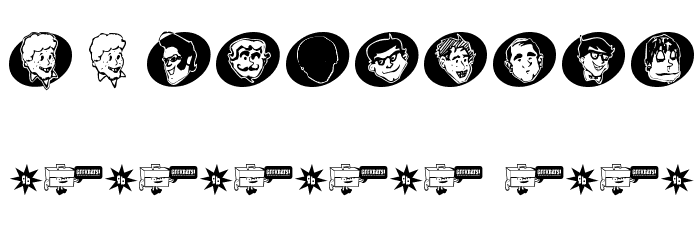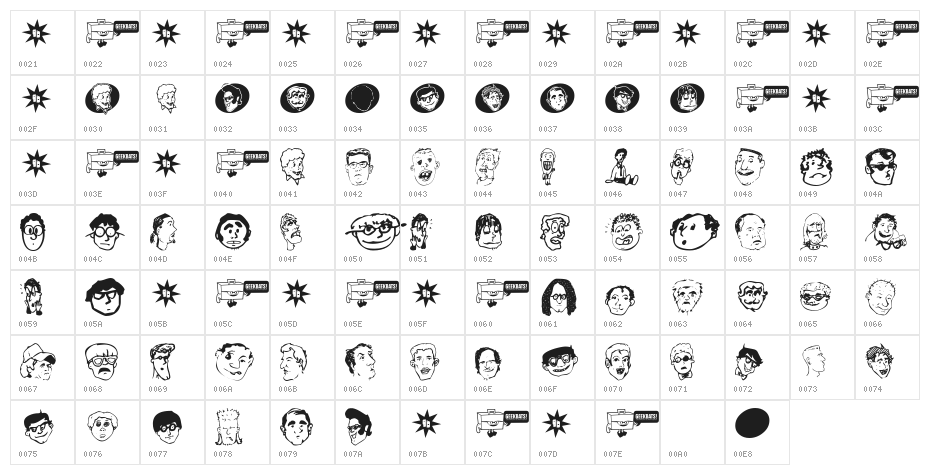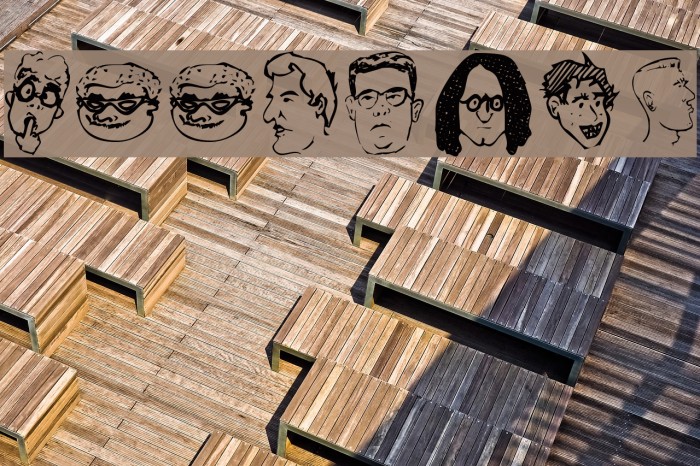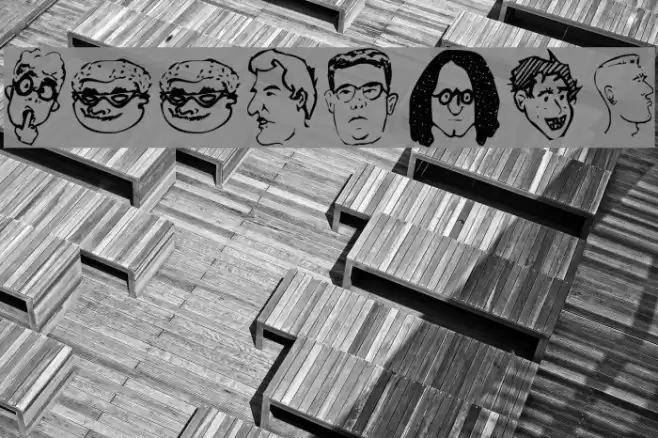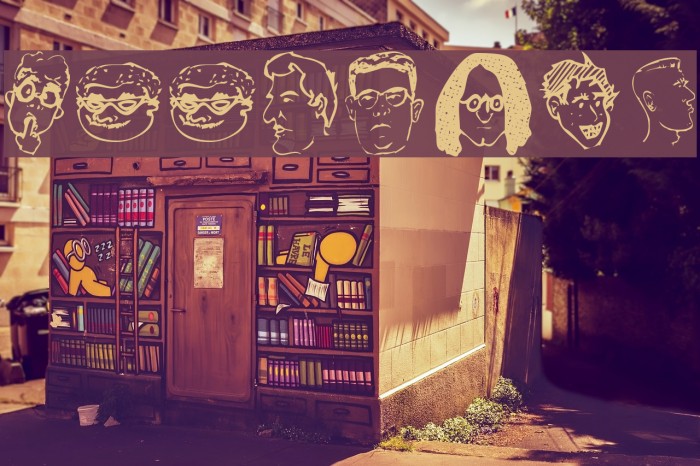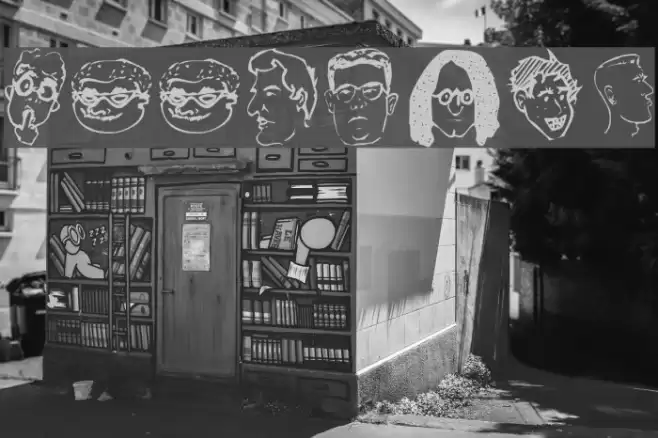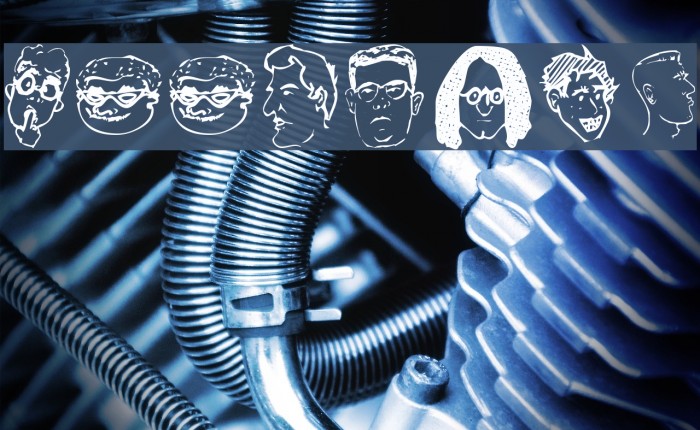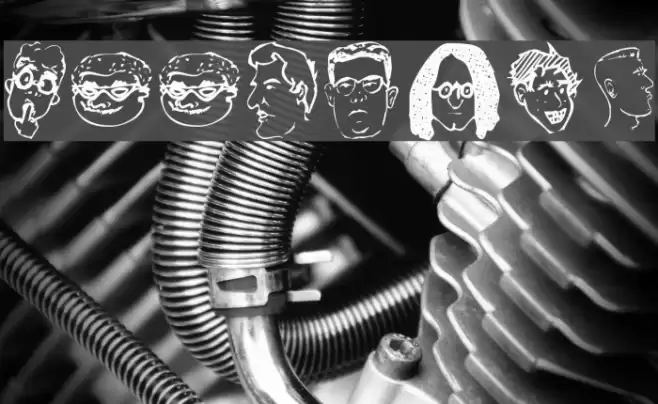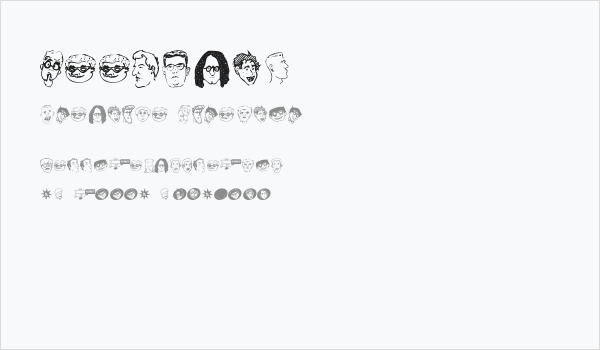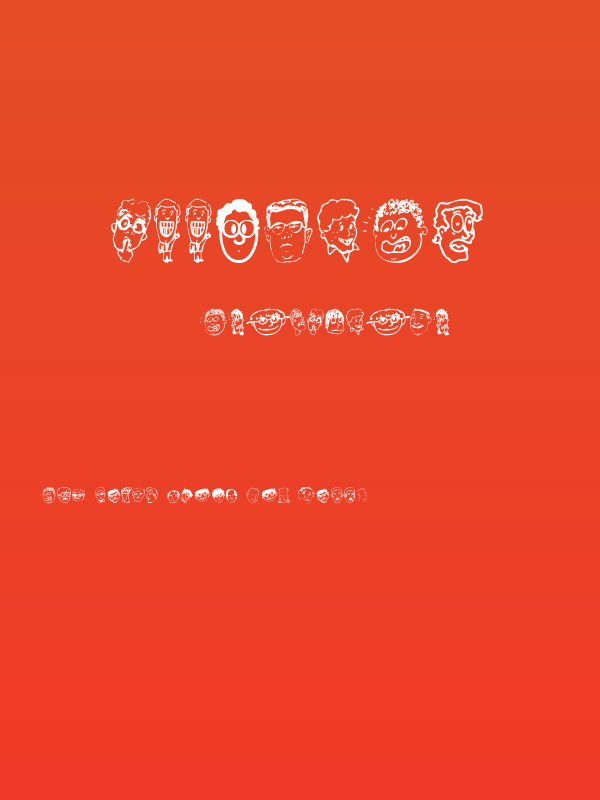
GeekBats Font
GeekBats Description
This is a decorative font featuring a series of quirky, hand-drawn cartoon faces. Each character is represented by a unique illustration, capturing a variety of expressions and personalities. The style is playful and artistic, with a sketch-like quality that adds a whimsical touch. The characters are detailed, with bold outlines and varying levels of shading, giving each face a distinct look. This font is not suitable for traditional text but serves as a creative element for design projects that require a fun and engaging visual component.
Overall StyleWhimsical, Artistic
Use CaseLogos, Posters, Creative Design
Proposed ProjectsIdeal for creative projects such as comic books, graphic novels, posters, and playful branding materials.